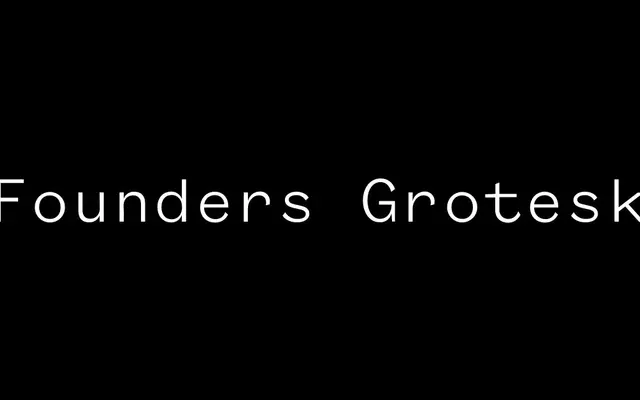
Founders Grotesk Mono
Klim Type Foundry · Kris Sowersby · 2014
A grotesque monospace inside the Founders Grotesk system, fit for code, editorial detail and brand pairings.
The monospaced cut of Founders Grotesk, by Kris Sowersby, sharing the lineage of Miller & Richard's Grotesque series, H. W. Caslon's Doric and Helvetica's Halbfett headline cuts. Five weights from Light to Bold sit alongside the parent Founders Grotesk, Text, Condensed and X-Condensed cuts, with a slashed zero, fractions and capital forms in the OpenType set. Used widely in editorial captions, code blocks and brand systems where the mono needs to hold a conversation with a wider grotesque family.
Klim classifies it as Modern: Lineal/Grotesque Monospaced; the monospaced cut of Founders Grotesk, sharing the family's roots in Miller & Richard's Grotesque series, Caslon's Doric and Helvetica's Halbfett headline cuts.